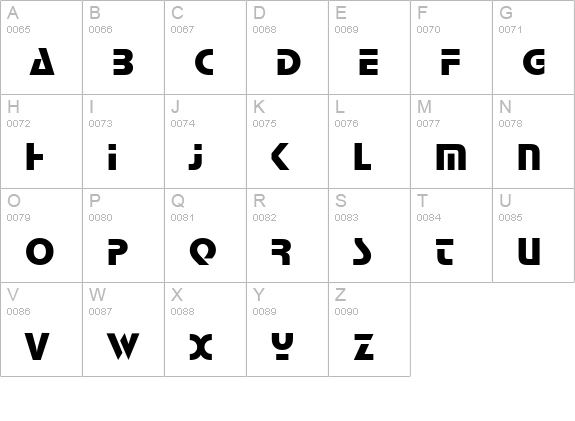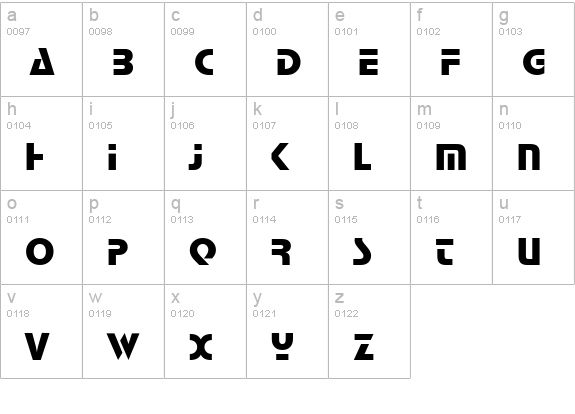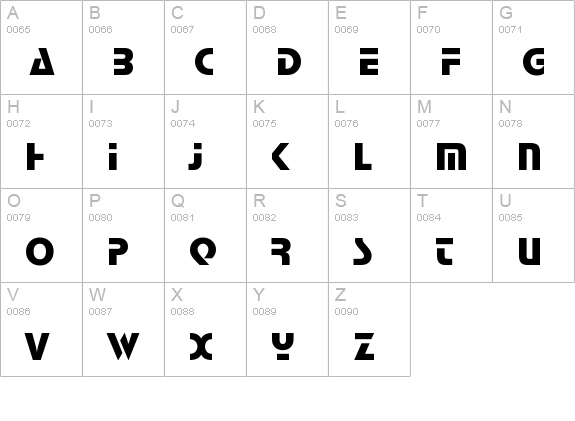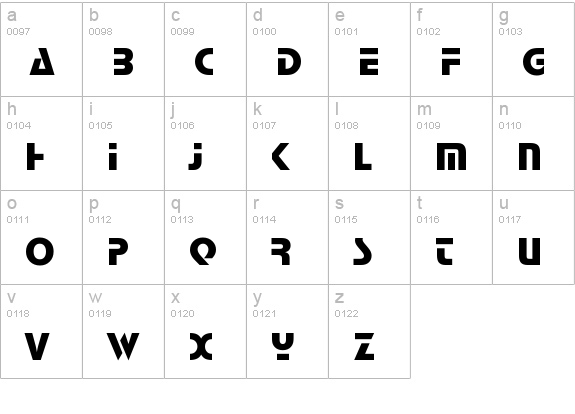
Introducing ScottSoft font, a sleek and modern typeface perfect for a wide range of design projects. This versatile font features clean lines and a contemporary feel, making it ideal for both digital and print applications. With its sophisticated yet approachable design, ScottSoft font is sure to make a statement and elevate your projects to the next level. What sets ScottSoft font apart is not only its stylish appearance but also the fact that it is available for free. That's right, you can download this amazing font at no cost from FontsMarket.com. Whether you're working on a branding project, website design, or any other creative endeavor, ScottSoft font is a fantastic choice that won't break the bank. Don't miss out on the opportunity to enhance your designs with this high-quality and freely available font. Download ScottSoft font today and see the difference it can make in your projects!